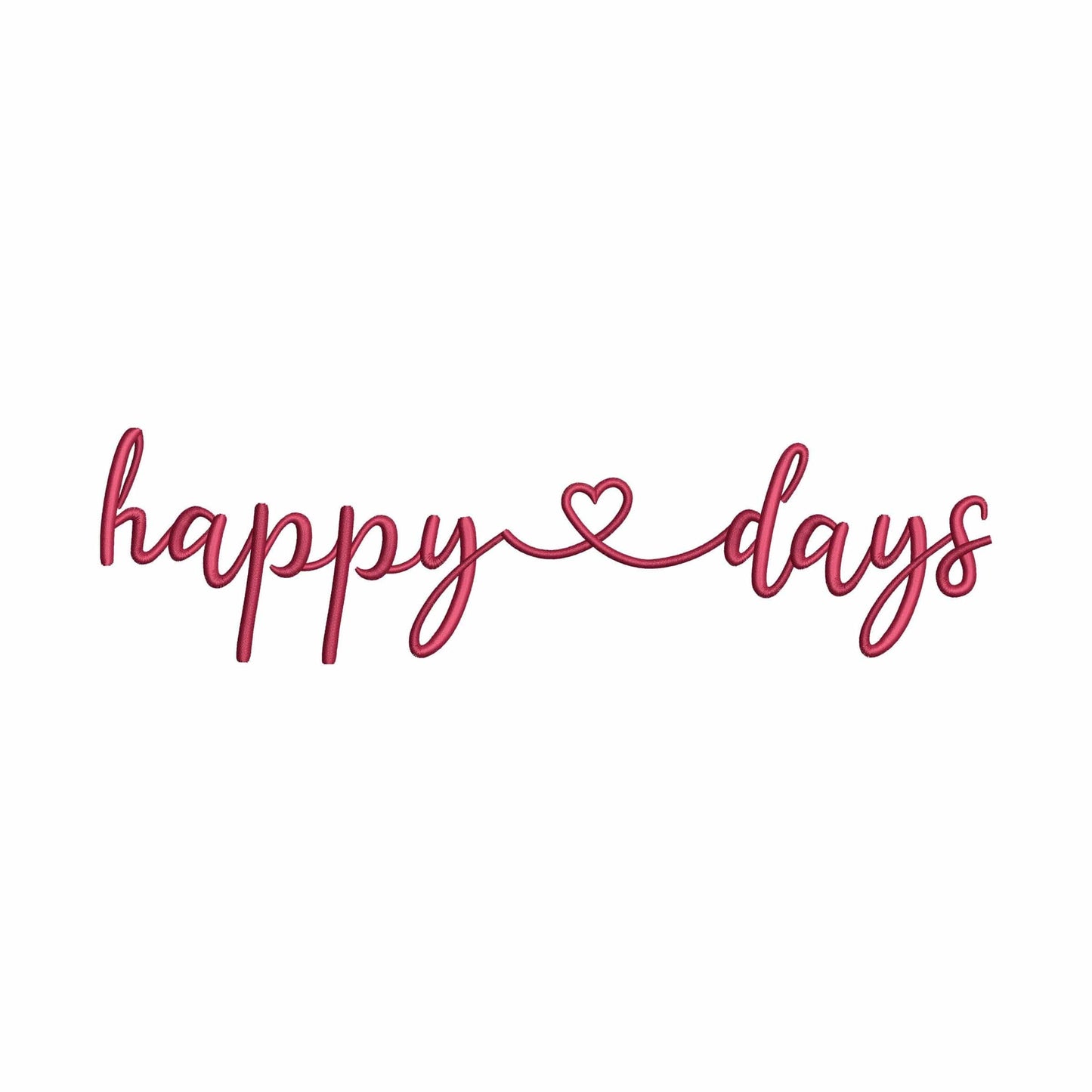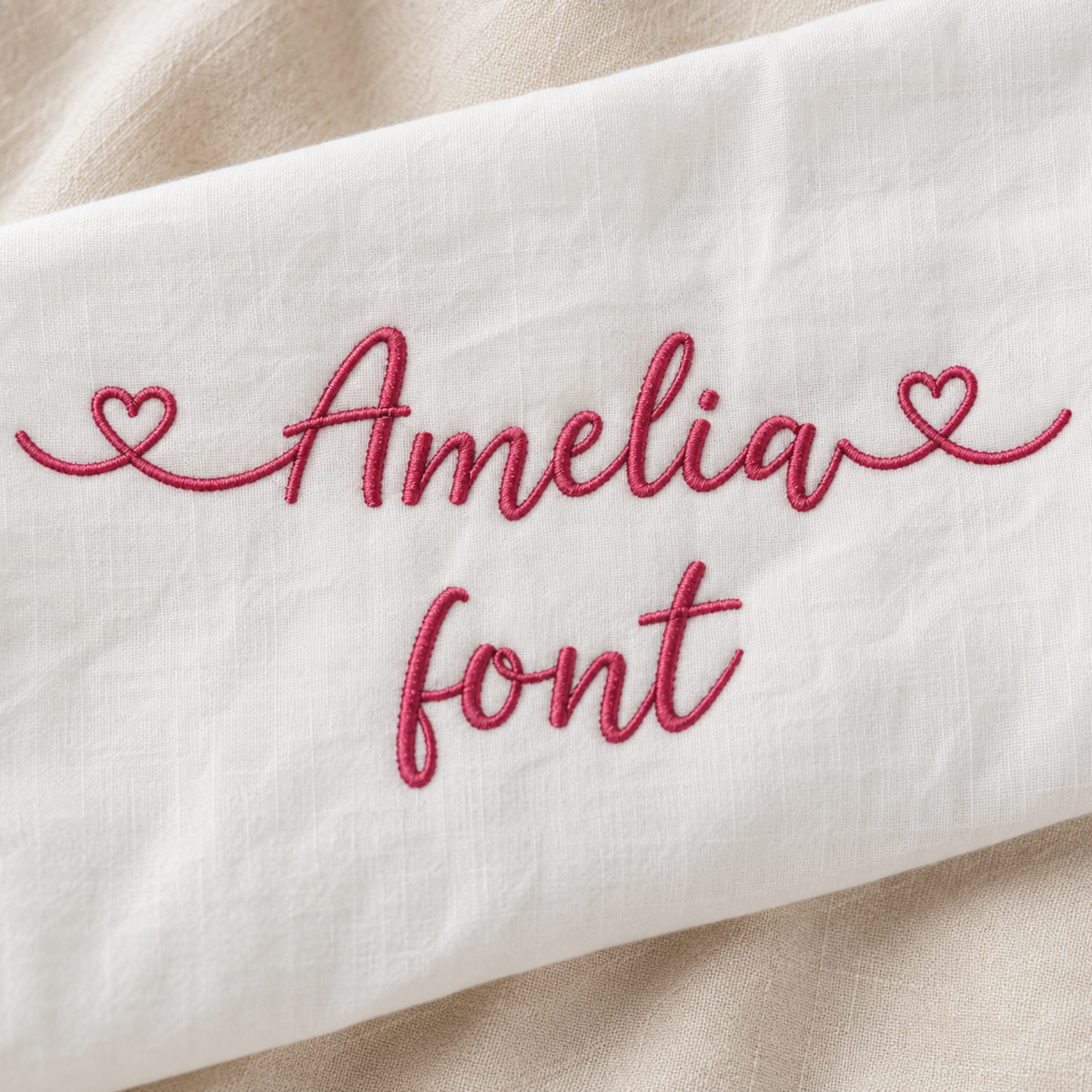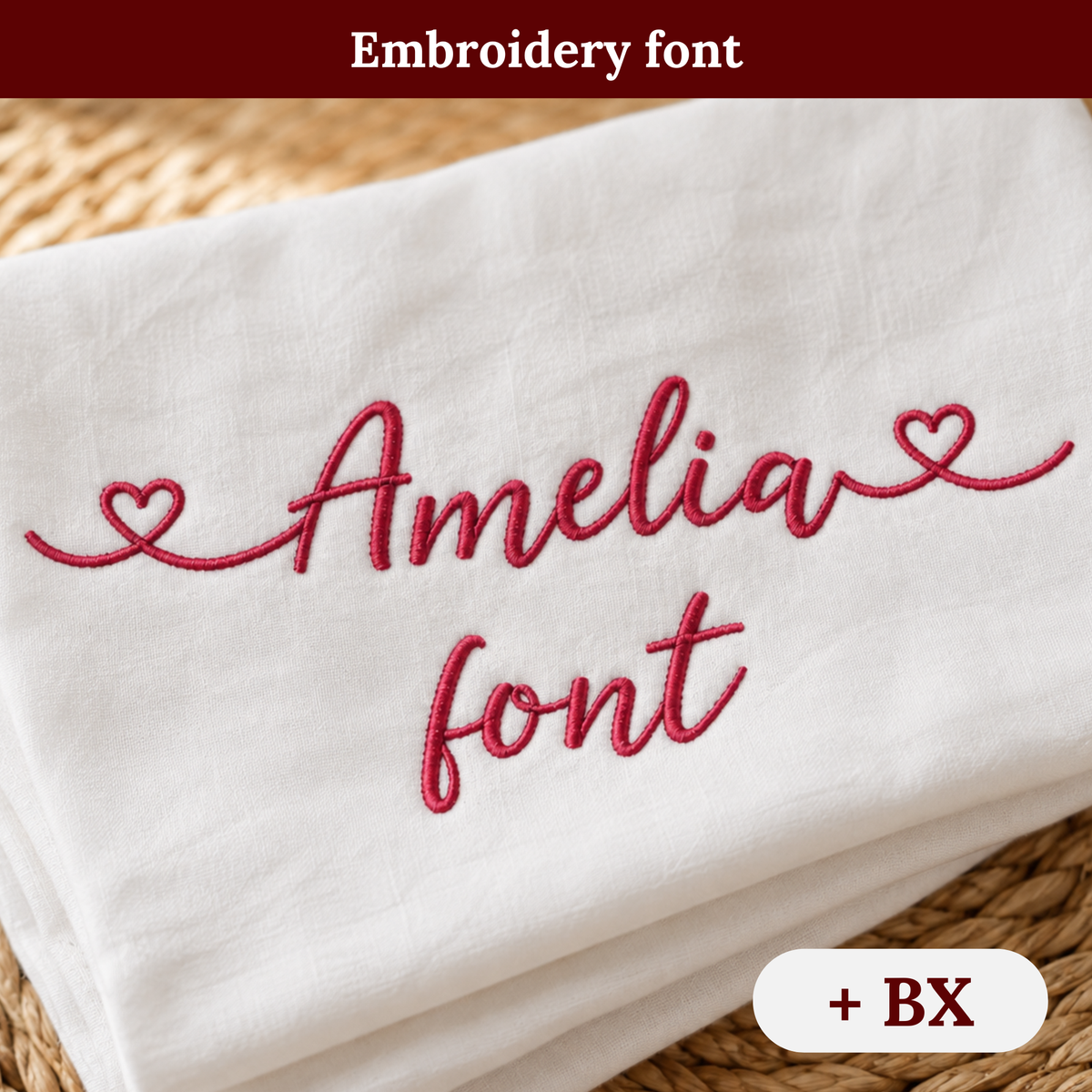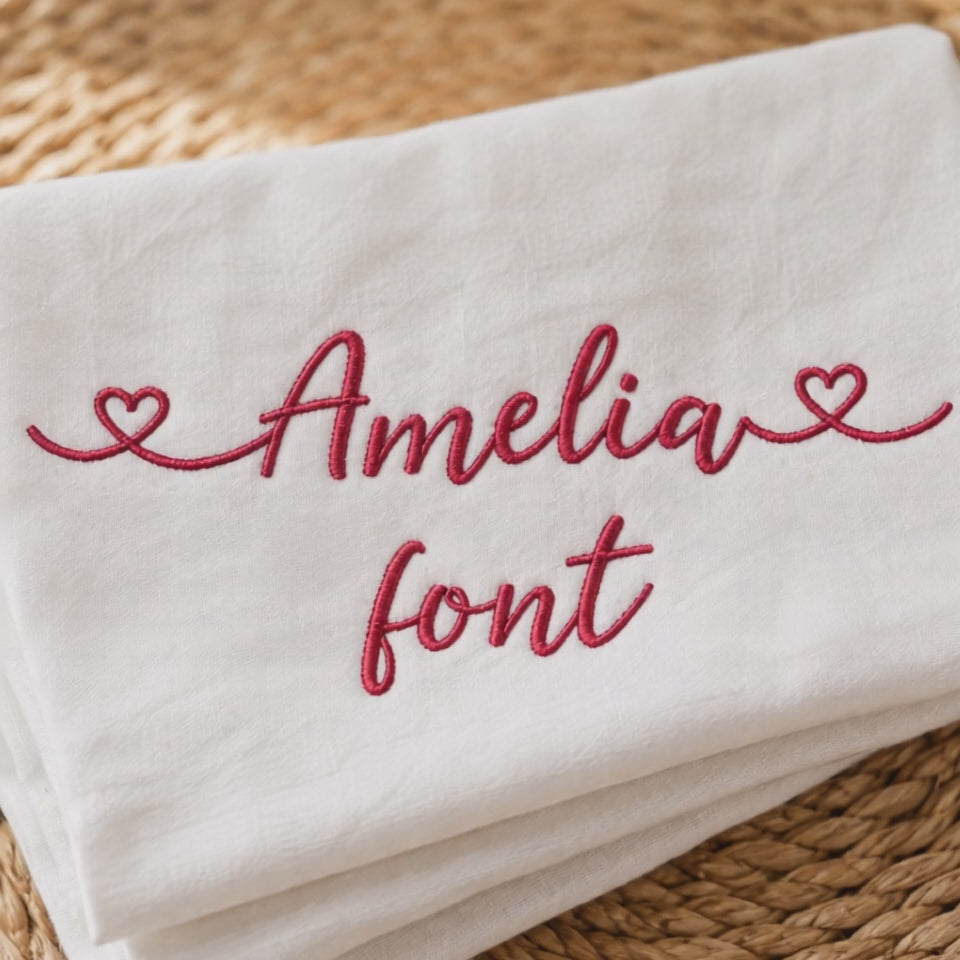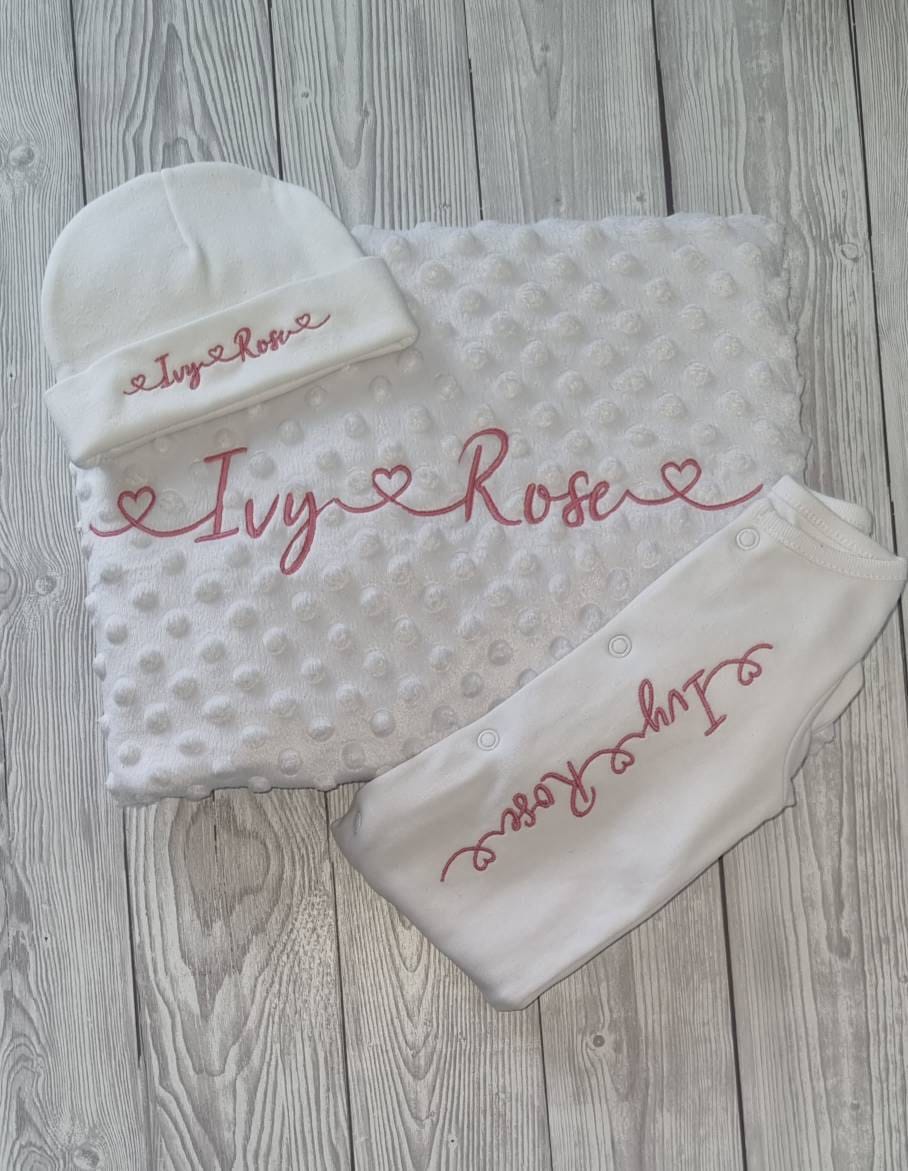
Amelia - Embroidery font
- Included: A-Z (uppercase), a-z(lowercase), 0-9 (numbers), heart
This machine embroidery font works well for monograms, name shirts, towels, keepsakes, and feminine personalized embroidery.
A strong choice for makers who want clean script lettering for boutique gifts, soft custom projects, and elegant everyday stitching.